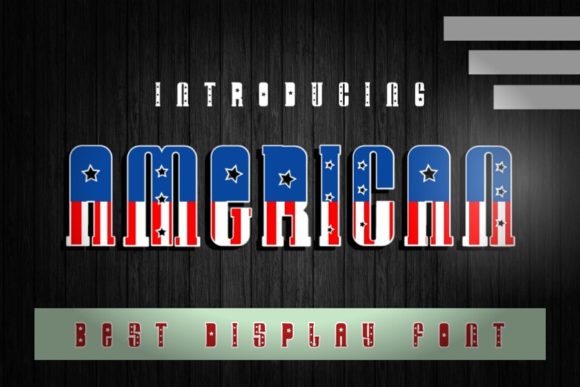
The Star-Spangled Font: Adding a Joyful Touch with American Font
I’ll never forget the summer I spent countless hours working on a 4th of July design project, only to realize I was stuck with a font that just didn’t scream “party.” It was bland, boring, and completely lacking in personality. That’s when I stumbled upon the American font, and let me tell you, it was love at first sight! ✨
This retro-styled display font has been a game-changer for my designs, adding a joyful touch that’s perfect for Independence Day celebrations, and so much more. In this article, I’ll dive into what makes American font so special, its features, and how to make the most of it in your designs.
- ✨ Unique and eye-catching design that’s perfect for making a statement
- ✅ Highly legible, even at larger sizes
- 🎉 Retro vibe that’s perfect for themed designs, like 4th of July or patriotic projects
- 💻 Works well for both digital and print designs
While American font is an amazing addition to any design project, there are a few things to keep in mind: 🤔
- ⚠️ May not be the best choice for body text, as it’s a display font and can be overwhelming for longer blocks of text
- ⚠️ Some characters may not work well at very small sizes, so be sure to test it out before finalizing your design
A Practical Guide: Using American Font in Your Designs
The Story Behind American Font
American font was designed with the intention of capturing the essence of American nostalgia and patriotism. The designer, inspired by vintage signs and posters from the 1950s and 60s, aimed to create a font that would evoke feelings of joy and celebration. And, as I can attest, they’ve succeeded! 🎊
Q: What type of designs is American font best suited for?
A: American font is perfect for designs that require a playful, celebratory feel, such as 4th of July decorations, party invitations, and themed party materials.
Q: Can I use American font for body text?
A: While American font is a beautiful addition to any design, it’s primarily intended for display text. For longer blocks of text, you may want to choose a more legible font.